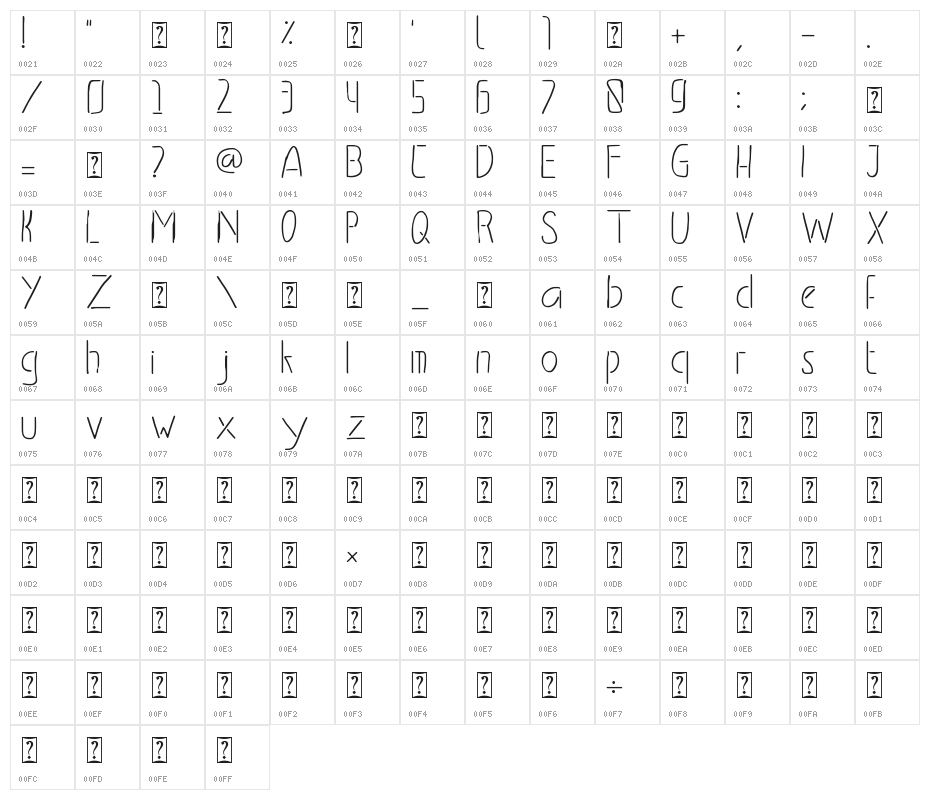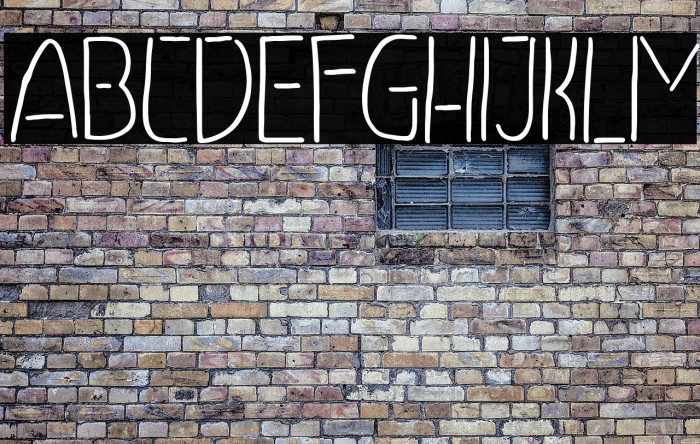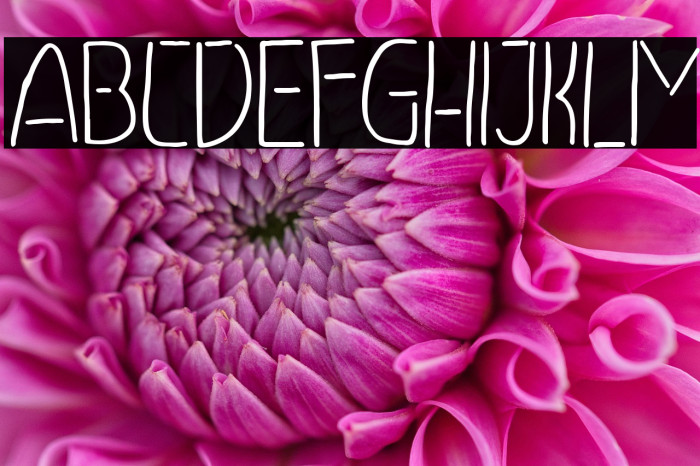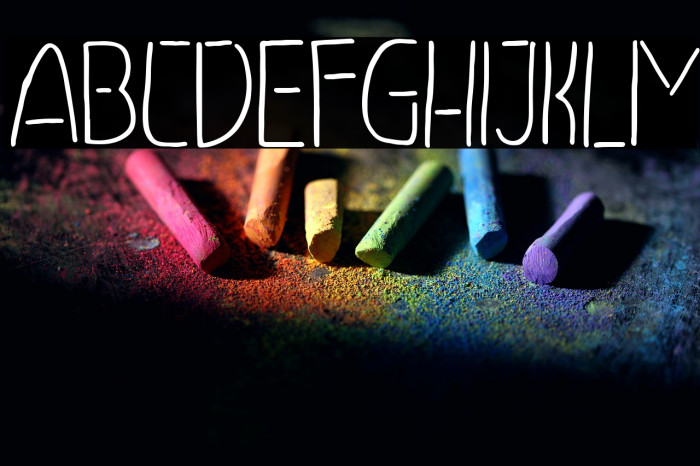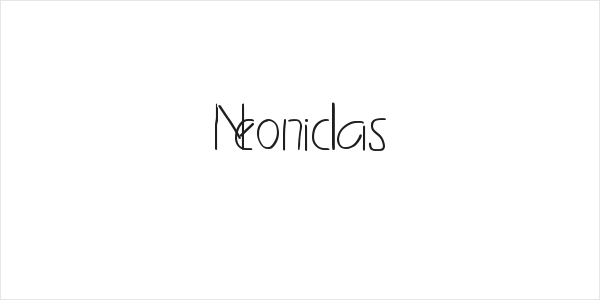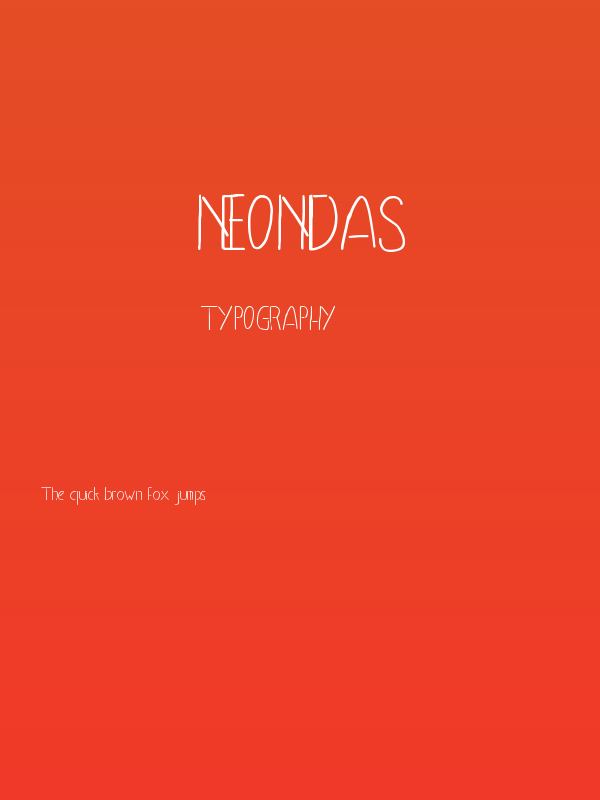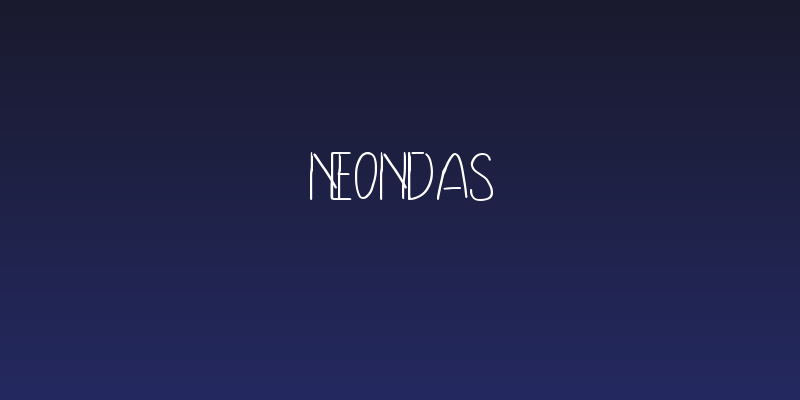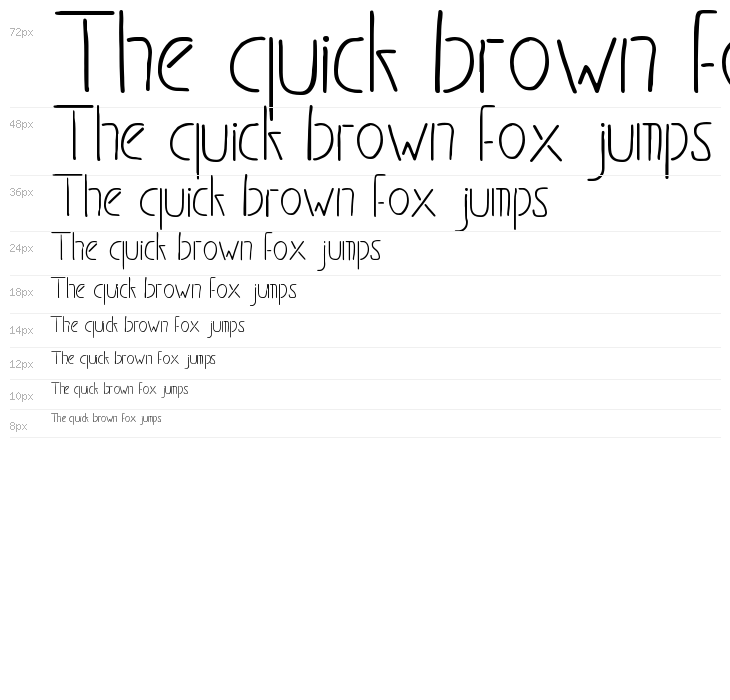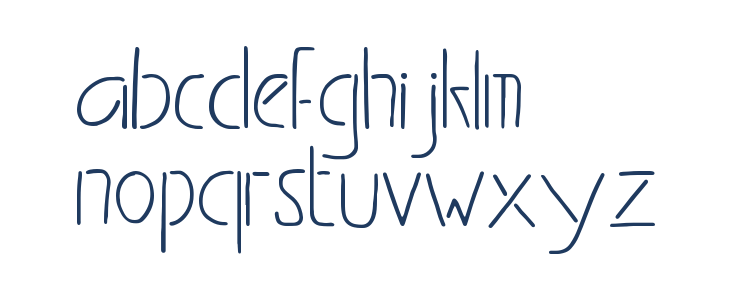
Neonidas Font
Neonidas Description
This font features a unique, hand-drawn style with elongated, narrow characters that give it a distinct, artistic appearance. The uppercase letters are tall and slender, with a consistent stroke width that maintains a clean and modern look. The lowercase letters mirror this style, offering a cohesive design throughout. Numbers are similarly styled, maintaining the font's overall aesthetic. Special characters are included, each designed to complement the font's artistic flair. The font's design is both playful and sophisticated, making it suitable for a variety of creative projects.